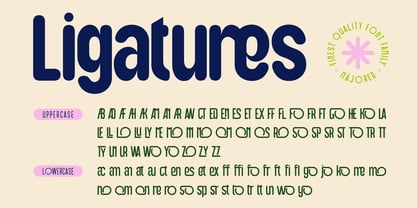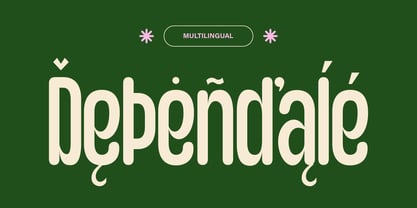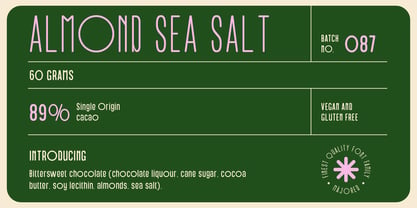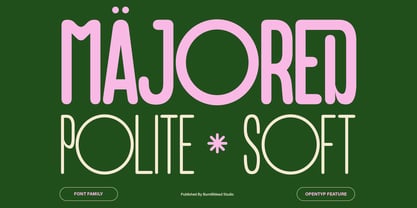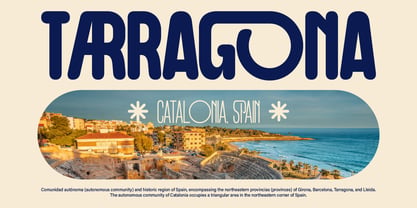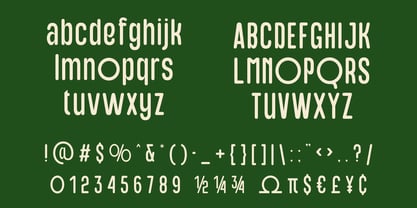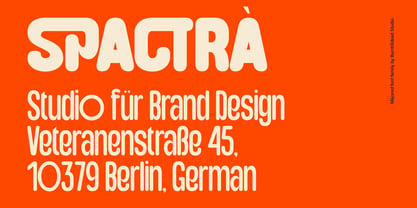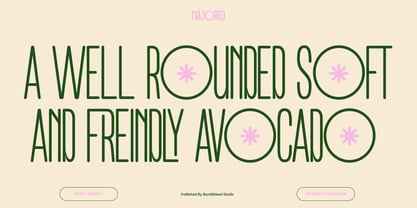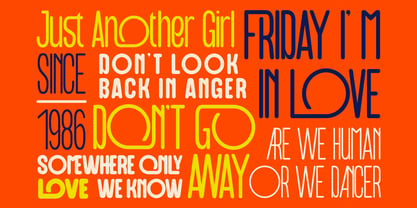
Majored
por Burntilldead
La familia tipográfica Majored fue diseñada por Eric Kurniawan y publicada por Burntilldead. Majored contiene 5 estilos y opciones de paquete familiar. Más información sobre esta familia
Say hello to Majored! Our groovy font family that playful and has unique style. With its bouncy curves make this font looks friendly, fun and energetic. This font also include ligature, alternate and multilingual support. With variety of weight, allowing you to create range of looks from thin to black. Despite its playful style, Majoread has clear readability. Ideal for playful brands, social media, poster for events, and anything that needs cheerful and inviting touch.
Features:
• A - Z set (Uppercase - Lowercase)
• Number
• Punctuation
• Alternates
• Ligatures
• Multilingual